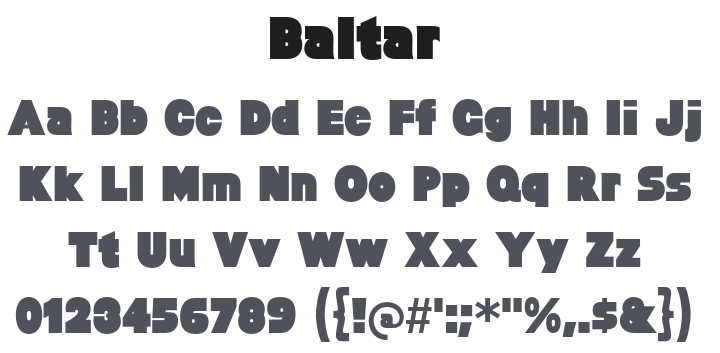
Baltar Font
About Baltar
Baltar is a massively heavy sans-serif display typeface with deliberate eccentricities — counters and inner gaps are strategically filled in, giving letters an ultra-dense, almost claustrophobic weight while staying legible. Its blunt, crude proportions make it feel raw and forceful. It shines in bold poster headlines, edgy branding, and designs that pair it with daring, high-contrast color choices.